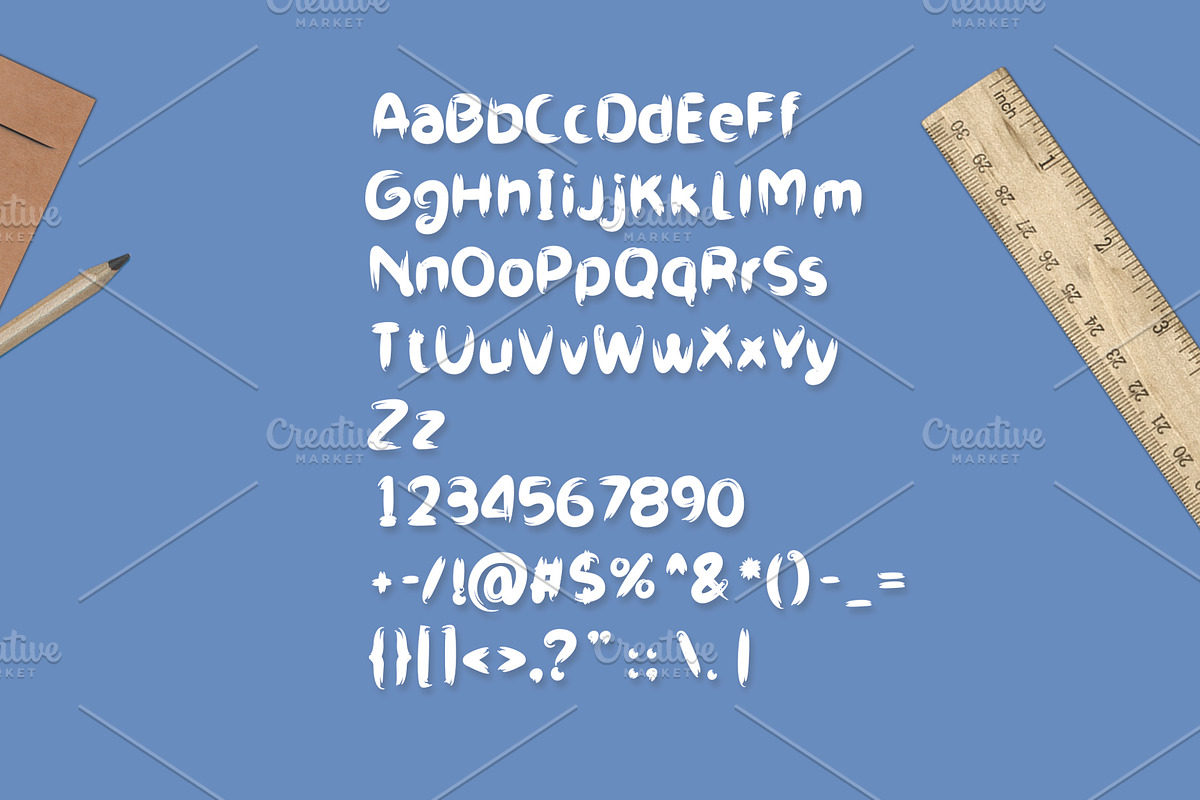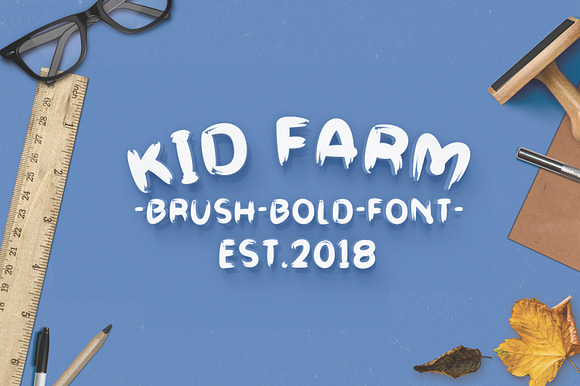
Kid Farm Brush-Font
Kid Farm Brush-Font is hay brush style. It 's perfect for organic products, cards, posters, wall art, branding, diy projects, greeting cards, labels, quotes, packaging, websites and much more.
Uppercase and Lowercase
Kid Farm Brush-Font by Graphicgo fits naturally into Branding, posters, packaging, typography.